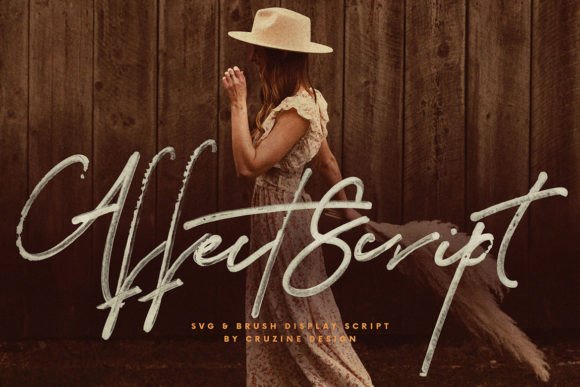
Affect Font: Elevate Your Design with Elegance and Sophistication
In the world of typography, a font can make or break a design. When it comes to creating a lasting impression, the right font can elevate your project from ordinary to extraordinary. Introducing Affect Font, a modern thin brush script font that embodies elegance and sophistication. With its graceful, fluid strokes and cursive letterforms, Affect Font is the perfect choice for designers and crafters looking to add a touch of refinement to their work.
The Characteristics of Affect Font
Affect Font boasts a range of characteristics that make it an ideal choice for branding, packaging, and editorial design. Its most notable features include:
- Thin Brush Script: Affect Font’s thin brush script style gives it a delicate, refined appearance that’s perfect for designs that require a touch of sophistication.
- Graceful, Fluid Strokes: The font’s fluid strokes create a sense of movement and elegance, making it perfect for designs that need to convey a sense of luxury or high-end quality.
- Cursive Letterforms: Affect Font’s cursive letterforms add a touch of whimsy and personality to any design, making it perfect for brands that want to stand out from the crowd.
- Consistent Stroke Weight: The font’s consistent stroke weight creates a sense of cohesion and balance, making it perfect for designs that require a high level of visual harmony.
Uses for Affect Font
Affect Font’s versatility makes it suitable for a wide range of design applications, including:
- Branding: Use Affect Font to create elegant and sophisticated brand identities that convey a sense of luxury or high-end quality.
- Packaging: Add a touch of refinement to your packaging designs with Affect Font’s delicate, refined appearance.
- Editorial Design: Use Affect Font to create stunning editorial designs that demand a contemporary and refined aesthetic.
- Stationery: Create beautiful stationery designs with Affect Font’s elegant, cursive letterforms.
Why Choose Affect Font?
With so many fonts available, why choose Affect Font? Here are just a few reasons why designers and crafters are falling in love with this modern thin brush script font:
- Elegance and Sophistication: Affect Font’s elegant, refined appearance makes it perfect for designs that require a touch of sophistication.
- Versatility: The font’s versatility makes it suitable for a wide range of design applications, from branding to editorial design.
- Easy to Read: Affect Font’s clear, cursive letterforms make it easy to read, even at small sizes.
- Unique: Affect Font’s unique blend of elegance and whimsy makes it a standout choice for designers looking to create something truly special.
Tips for Using Affect Font
To get the most out of Affect Font, here are a few tips to keep in mind:
- Use it Sparingly: Affect Font’s elegance and sophistication can be overwhelming if overused. Use it sparingly to create a lasting impression.
- Pair it with a Serif Font: Pair Affect Font with a serif font to create a beautiful contrast that adds depth and interest to your design.
- Experiment with Colors: Affect Font’s delicate appearance makes it perfect for experimenting with different colors and textures.
Affect Font is a modern thin brush script font that embodies elegance and sophistication. With its graceful, fluid strokes and cursive letterforms, it’s the perfect choice for designers and crafters looking to add a touch of refinement to their work. Whether you’re creating a brand identity, packaging design, or editorial design, Affect Font is sure to make a lasting impression. So why wait? Try Affect Font today and elevate your design to new heights!